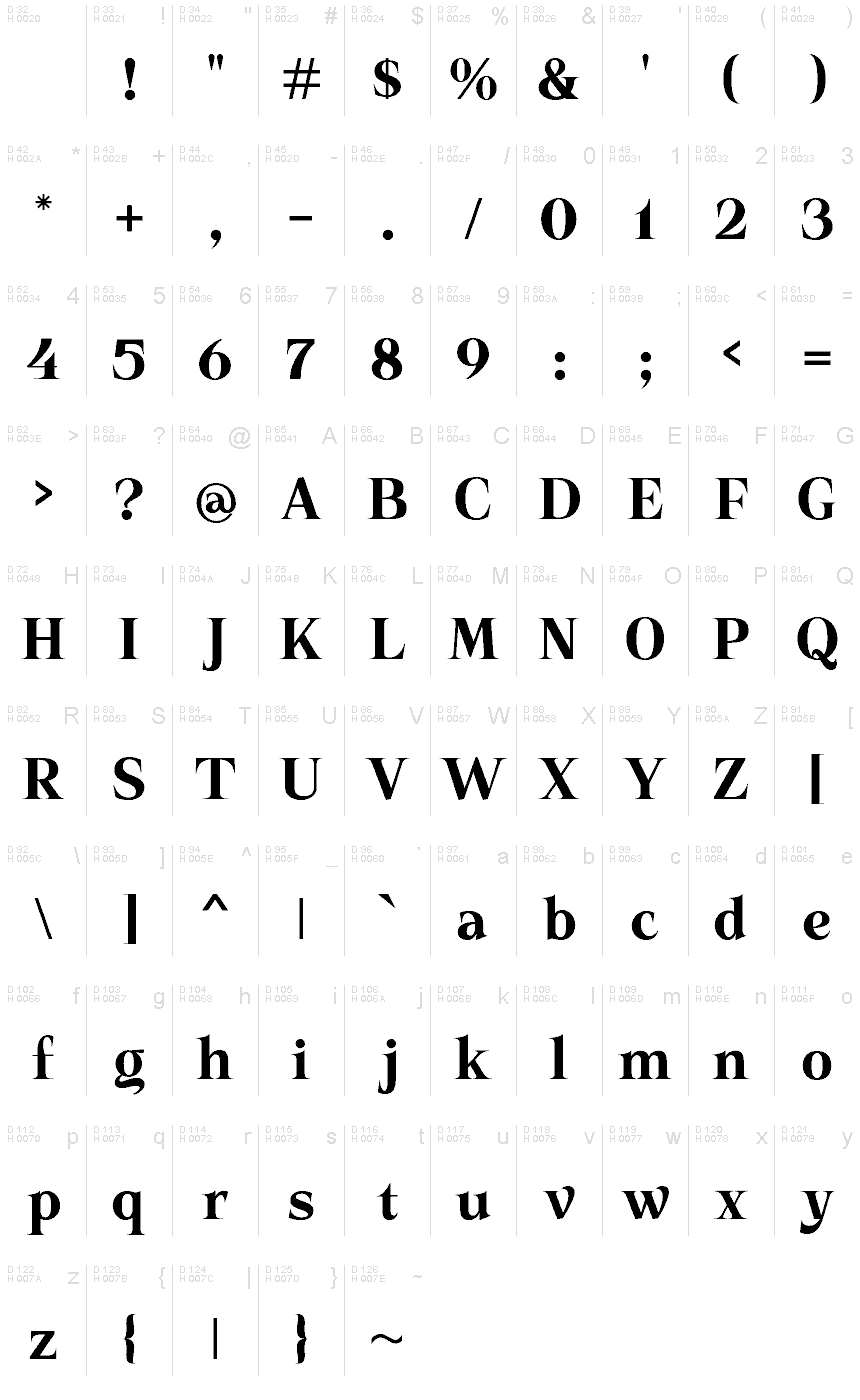
HawthorneVintage-Regular
Hawthorne Vintage font from Get Studio is a serif typeface praised for its classic, elegant, traditional, timeless, and sophisticated style. The font’s vertical orientation appears majestic while carrying a formal and friendly vibe around it. Combined with shapes of sharp angles and stylish curves, this font also delivers an artistic flair to any text.